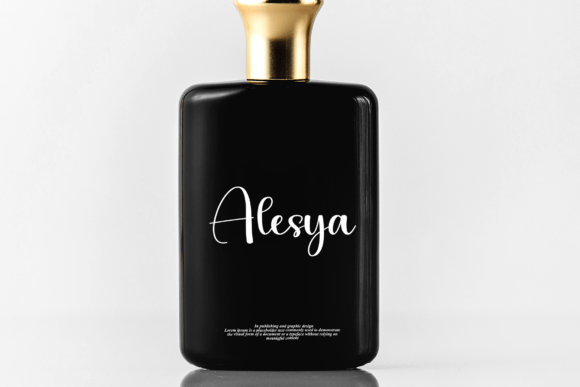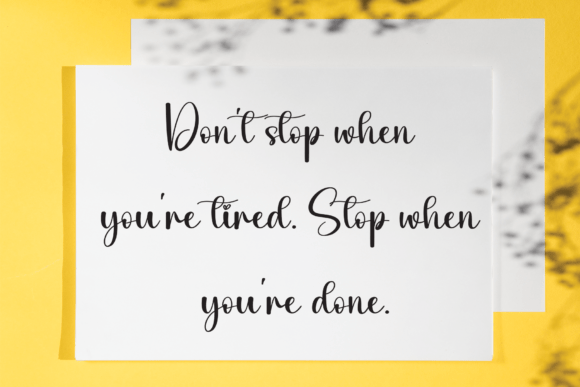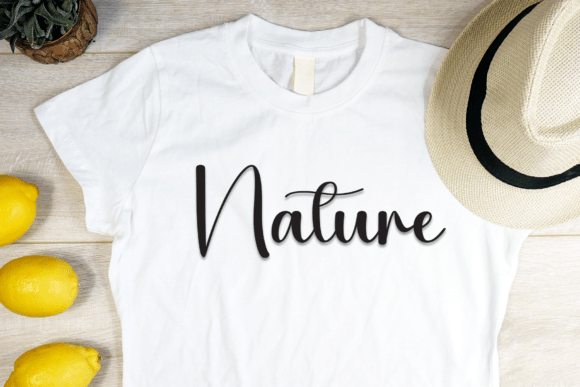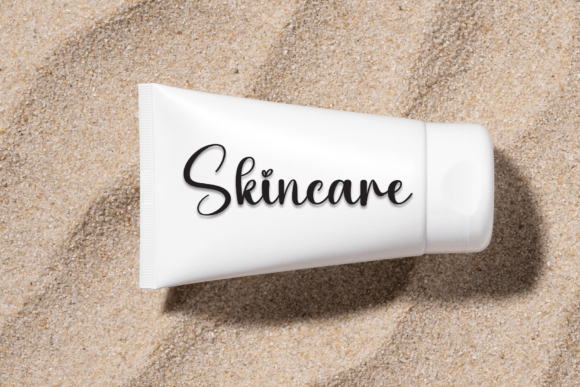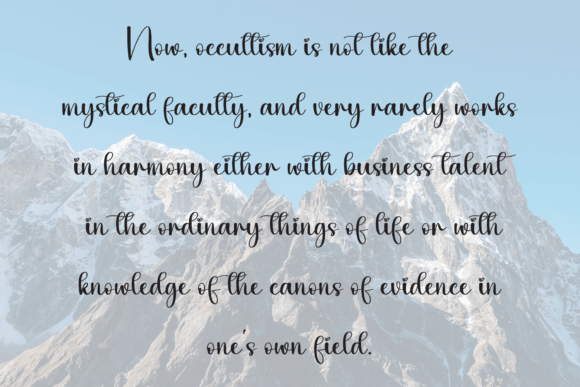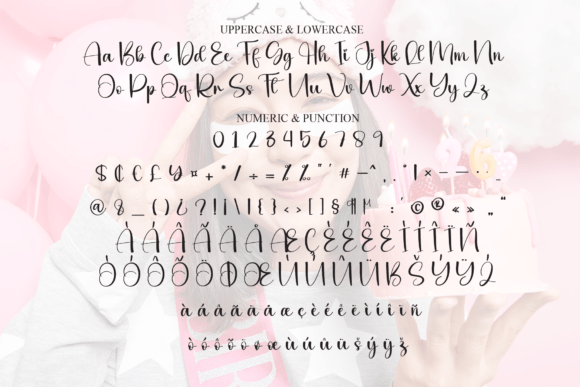
The Cuteday Font: A Creative Game-Changer for Designers and Crafters
Have you ever been in the middle of a design project, pouring your heart and soul into it, only to hit a roadblock when it comes to choosing the perfect font? You’re not alone! I recall working on a wedding invitation project, determined to create something truly special for the happy couple. The design was coming along beautifully, but I just couldn’t find a font that captured the right balance of elegance and playfulness. That was until I stumbled upon the Cuteday Font.
This script handwritten font has been a game-changer for me and countless other designers and crafters. Its natural flow and smooth curves add a touch of charm and character to any project, making it perfect for titles, body text, or decorative elements. In this article, we’ll dive into the world of Cuteday Font, exploring its features, how to use it, and some similar fonts you might love.
An Honest Review of Cuteday Font
- ✨ Legibility: Despite its playful and cursive nature, Cuteday Font is remarkably legible, making it suitable for both titles and body text.
- ✅ Versatility: This font works beautifully for a wide range of projects, from t-shirts and magazine covers to wedding invitations, branding, social media graphics, and greeting cards.
- 💫 Personality: Cuteday Font has a unique personality that shines through in every project, adding a touch of warmth and friendliness.
While Cuteday Font is an amazing addition to any design project, there are a few things to keep in mind:
- ⚠️ Limited use of all-caps: Due to its script nature, Cuteday Font might not be the best choice for all-caps text. However, it does offer some lovely stylistic alternates to help you mix things up.
- 🤔 Glyph limitations: As with any font, there might be limitations to the number of glyphs available. However, Cuteday Font offers a generous set of characters, including OpenType features and stylistic alternates.
The Backstory of Cuteday Font
Cuteday Font was designed with the intention of creating a personal and expressive typeface that captures the essence of creative ideas. While the actual design process and inspiration behind Cuteday Font are unclear, it’s easy to imagine a designer sitting down with a pen and paper, determined to craft a font that feels like a warm conversation with a friend.
Q: What makes Cuteday Font unique?
A: Cuteday Font’s unique blend of natural flow, smooth curves, and playful personality make it stand out from other script fonts.
Q: Does Cuteday Font support OpenType features?
A: Yes, Cuteday Font offers OpenType features, including stylistic alternates and glyphs, which can be accessed in compatible design software.
Q: Can I use Cuteday Font for body text?
A: While Cuteday Font is legible, it’s best suited for titles, headings, and short paragraphs. For longer body text, you may want to consider a more traditional serif or sans-serif font.